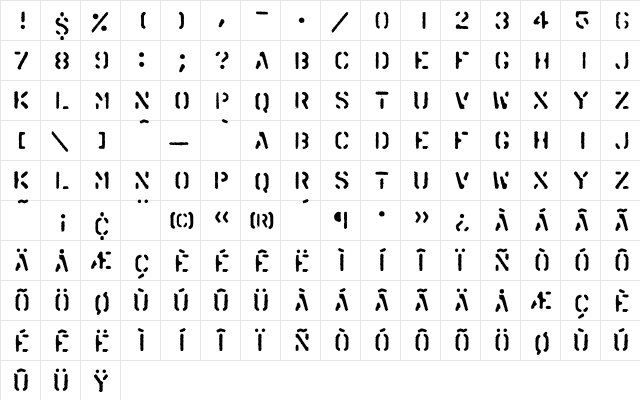
Karton Regular
Design Context for Karton Typeface
Karton is a composed and adaptable typeface that performs quietly and consistently across a wide range of design contexts.